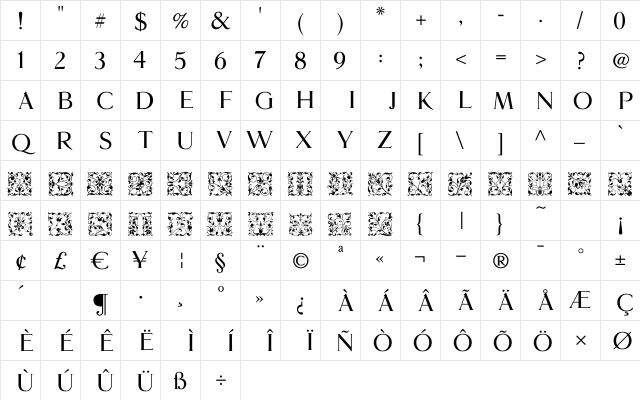
GlossoInitials Regular
Design Context for GlossoInitials Typeface
GlossoInitials offers clean, dependable letterforms without strong stylistic allegiance, making it a practical choice for designers who need flexibility.
Pro Tip: Use GlossoInitials in both headline and body roles to test its range before committing to a single application.